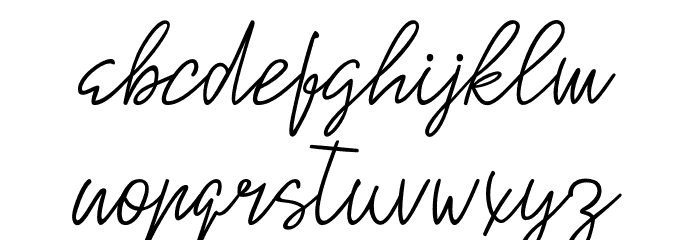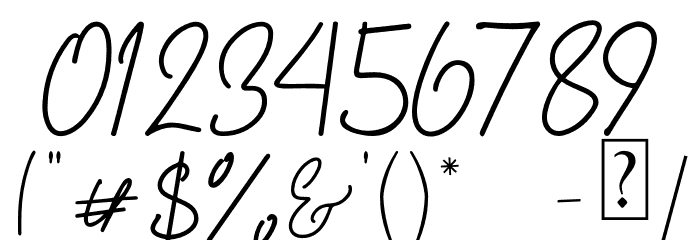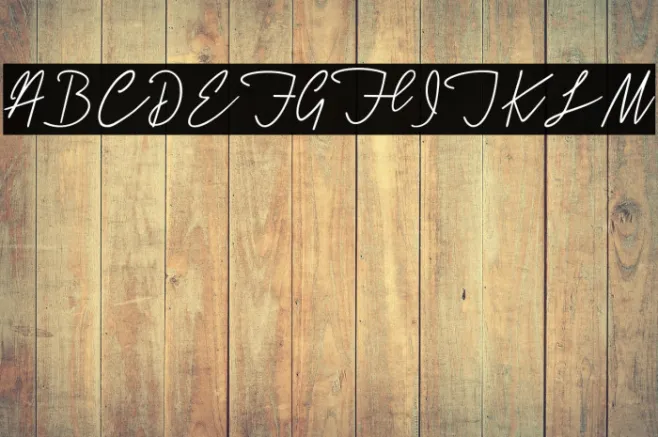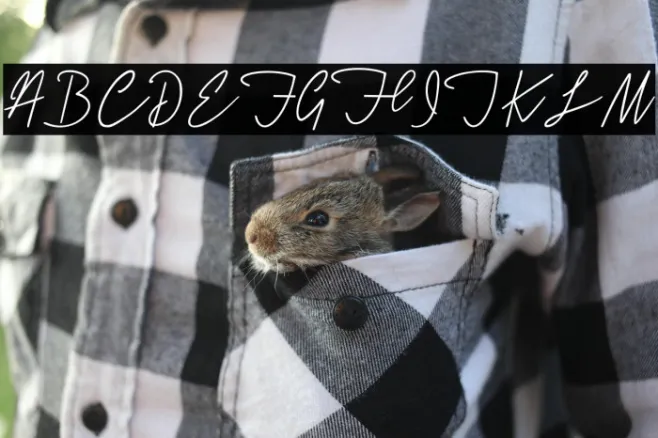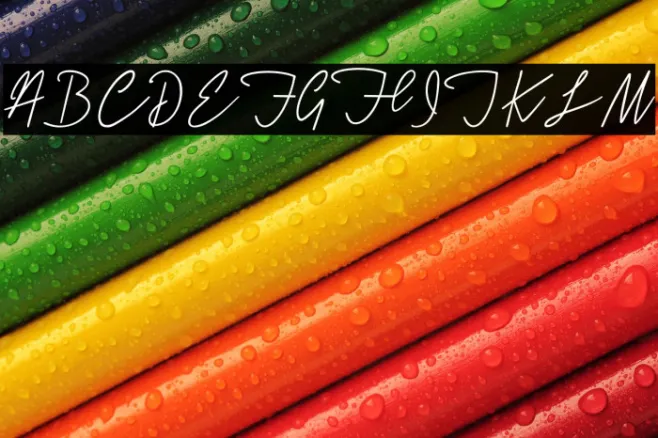
The Hague Font
This font features a flowing, cursive style with elegant, connected strokes that give it a handwritten appearance. The uppercase letters are slightly more formal, with sweeping lines and a consistent slant, while the lowercase letters maintain a casual, approachable feel. The numerals are clear and legible, with a slight slant that matches the overall style. Special characters are seamlessly integrated, maintaining the font's cohesive look. The overall design is both stylish and versatile, suitable for a variety of applications where a personal touch is desired.
A cursive, handwritten-style font with elegant, flowing strokes.
- Font: The Hague
- Proposed Projects: Ideal for wedding invitations, personal branding, greeting cards, and artistic projects requiring a personal touch.
- Category: Script
- Use Case: Logos, Invitations, Personal Branding